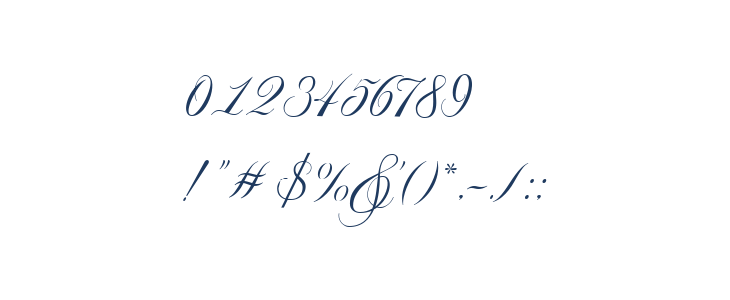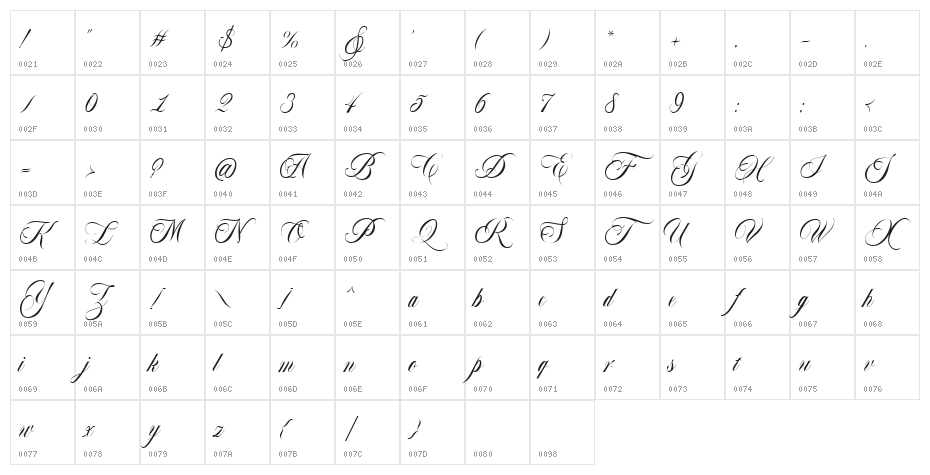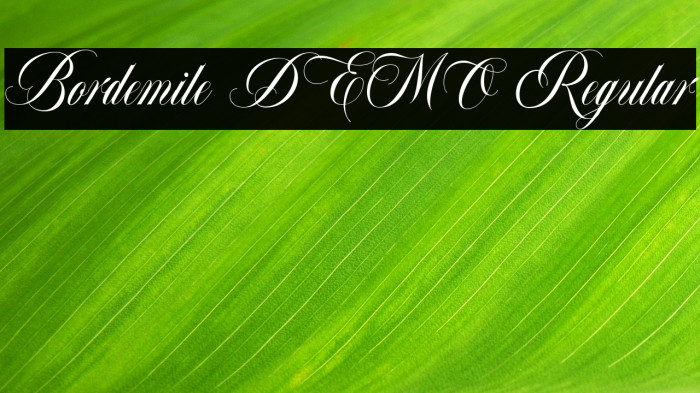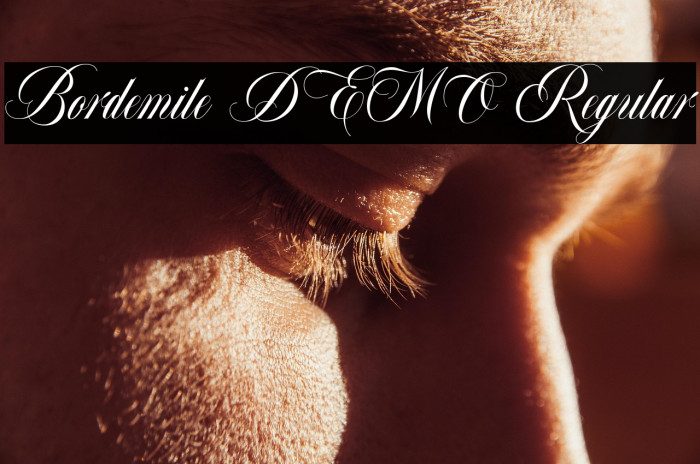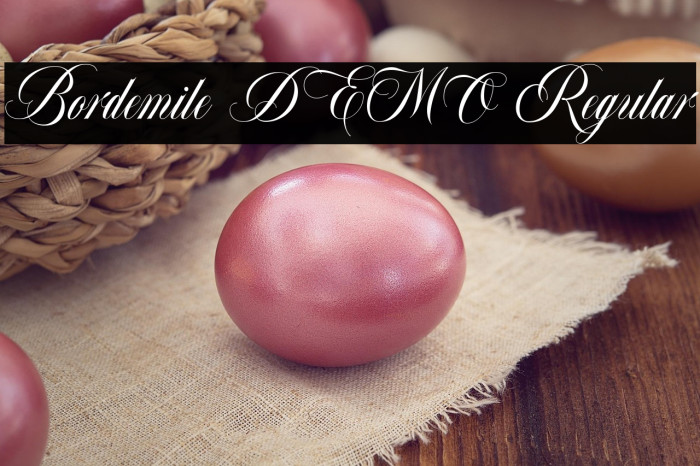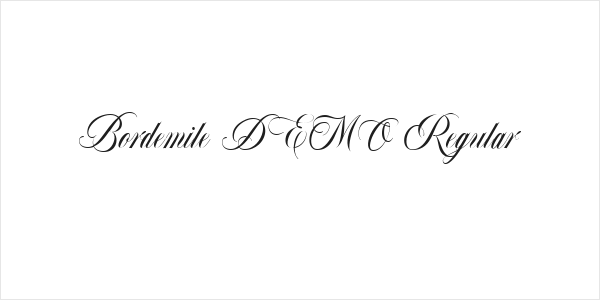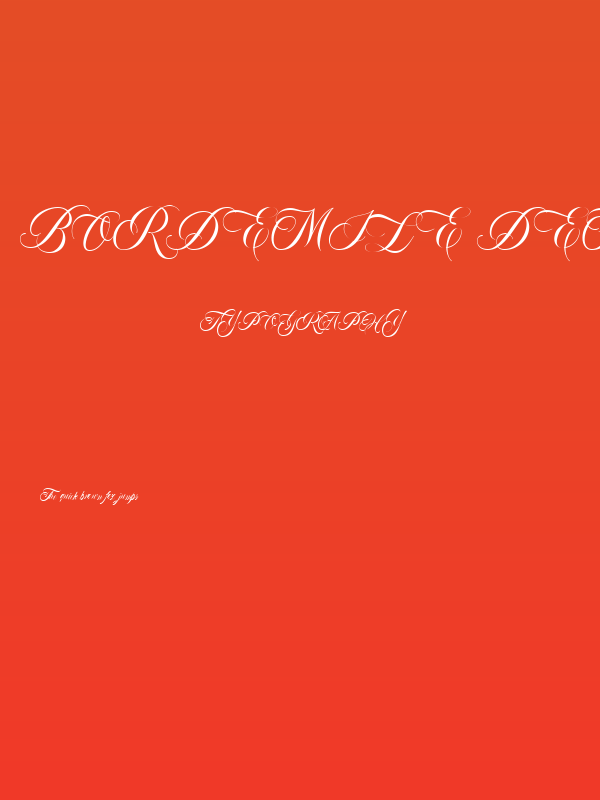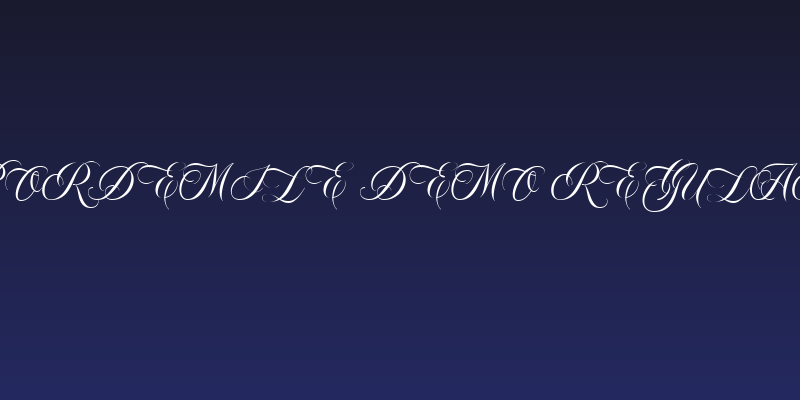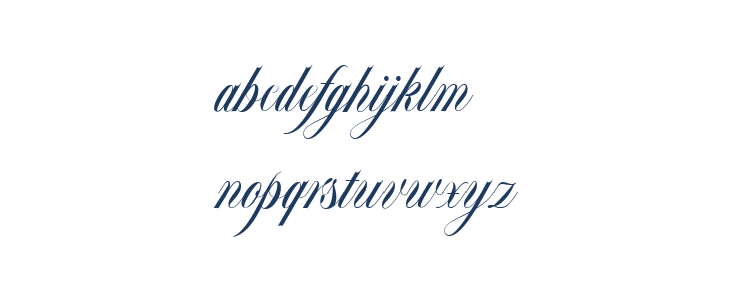
Bordemile DEMO Regular Font
Bordemile DEMO Regular Description
This elegant script font features a sophisticated and flowing design, characterized by its intricate swirls and flourishes. The uppercase letters are particularly ornate, with elaborate loops and curves that give them a sense of grandeur and formality. The lowercase letters maintain a consistent style, with smooth, connected strokes that enhance readability while retaining an artistic flair. The numerals and special characters are designed to match the overall aesthetic, ensuring a cohesive look across all text elements. This font exudes a sense of luxury and refinement, making it ideal for projects that require a touch of elegance.
| Overall Style | Elegant, Formal |
| Use Case | Headlines, Invitations, Branding |
| Proposed Projects | Ideal for wedding invitations, luxury branding, formal event programs, and elegant packaging design. |